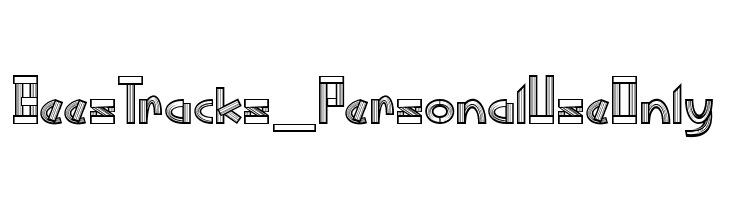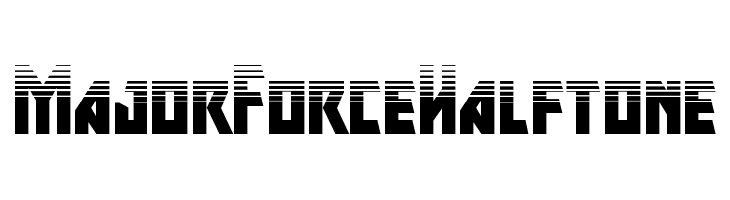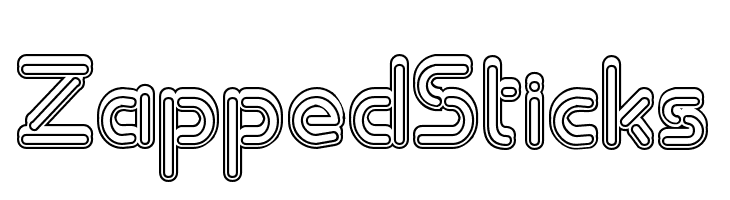
A bold, hollow, inverse font with a modern and geometric style.
A bold, italicized font with a dynamic overlapping line effect.
A bold, multi-line decorative font with a geometric and architectural style.
A retro-inspired font with a double-line, geometric design.
A bold, triple-line font with a playful, outlined design.
A bold, collegiate-style font with outlined, block-like characters.
A bold, geometric font with a halftone effect and futuristic style.
A bold, italicized font with a futuristic halftone effect and sharp geometric shapes.
A bold, 3D slab serif font with a shadow effect for impactful designs.
A playful, bold outline font with a whimsical, cartoon-like style.